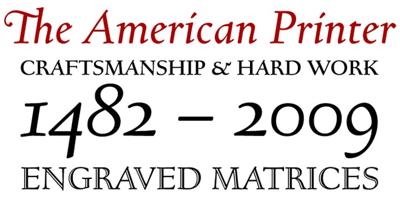
The Vexillum Font is incredibly versatile, making it an excellent choice for a wide array of design projects that demand a sense of structured elegance, historical gravitas, and a commanding, classical aesthetic. Imagine it bringing a distinguished clarity to official documents, adding an authentic, monumental feel to museum exhibits, or providing a sophisticated, timeless presence to branding for high-end educational institutions. It's also fantastic for crafting elegant awards and certificates, enhancing editorial layouts for historical and cultural publications, and designing captivating signage that exudes authority. Its inherent balance and refined character make it perfect for any project striving to communicate legacy, tradition, and an unwavering commitment to enduring quality.
What makes Vexillum Font so exciting is its unique ability to combine the robust structure of a classic serif or the authoritative presence of a distinguished sans-serif with subtle historical influences, giving it both strength and refinement. It often features well-defined letterforms, precise serifs (if applicable), and a balanced weight that ensures individual characters are distinct and highly legible across various applications. This font doesn't just display text; it plants a flag, making your message feel authoritative, prestigious, and effortlessly timeless. Its balance of aesthetic appeal and functional clarity ensures that your designs are not only beautiful but also effectively convey their intended sentiment. It's a typeface that brings an atmosphere of historical dignity and classic sophistication to your typography, guaranteeing your projects leave a polished and memorable impression.
The Vexillum Font family typically includes a comprehensive range of weights and stylistic alternatives to provide extensive creative flexibility. While specific options can differ, you can generally expect to find alternatives like Regular, Italic, Bold, and potentially a Light or Condensed version, allowing for diverse visual impact and hierarchy. These different weights and stylistic sets allow you to create dynamic visual structures and add nuanced emphasis to your typography, ensuring a cohesive and thoughtfully designed outcome. This comprehensive family support ensures that whether you need a strong, commanding headline or a subtle, refined body text, Vexillum Font Free Download offers the perfect elements to bring your sophisticated vision to life.